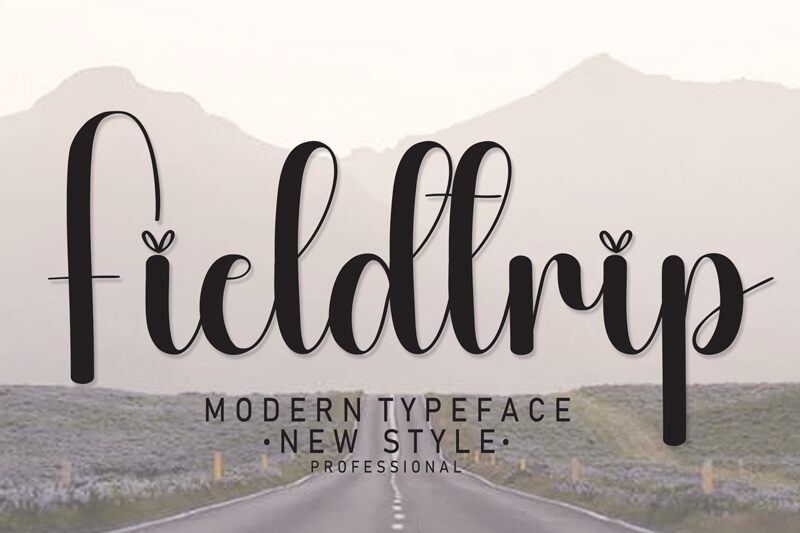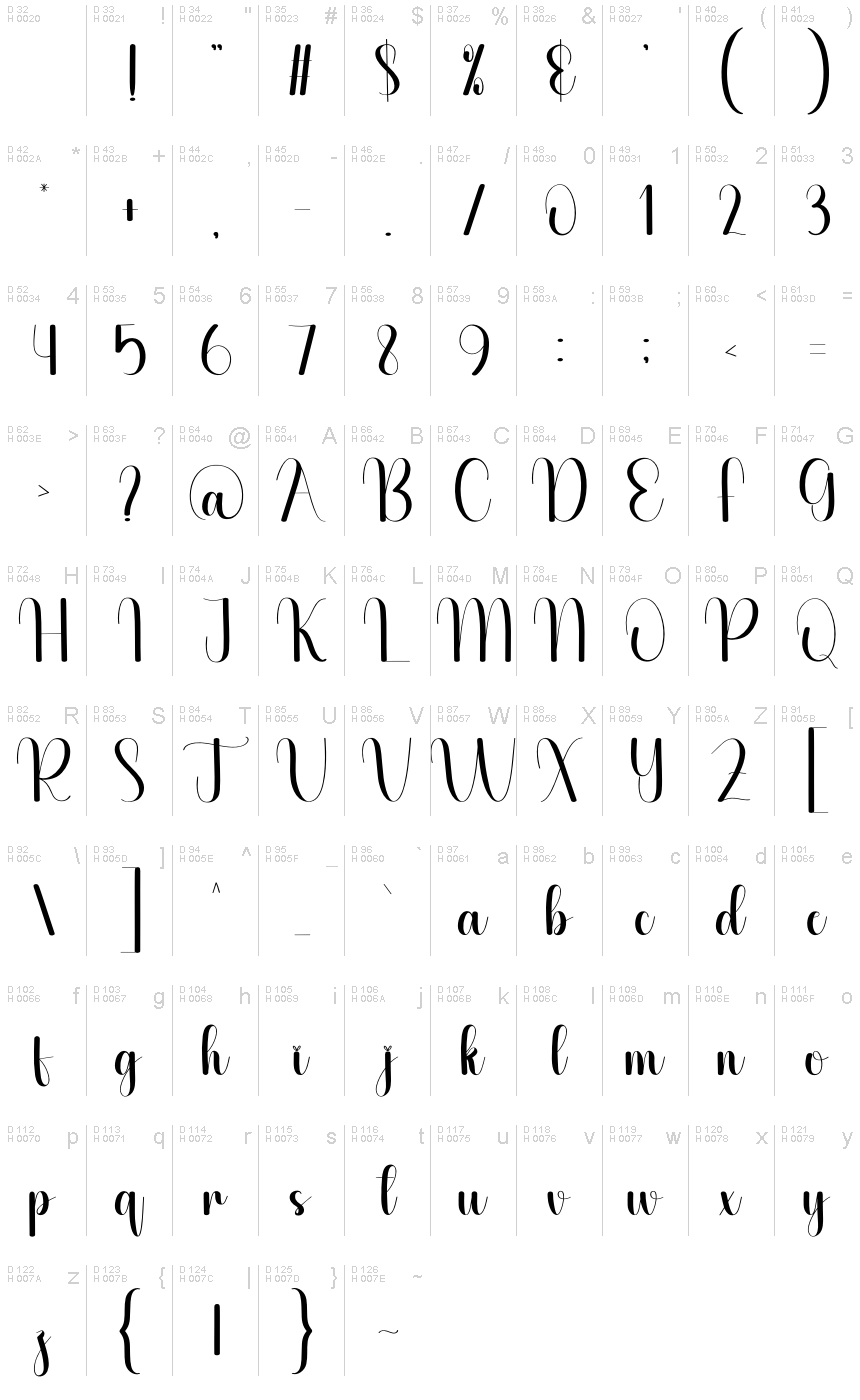
Fieldtrip
Fieldtrip font, crafted by Scratchones, embodies the enchanting fluidity of calligraphy with a playful twist. Its sweeping curves and whimsical flourishes create a sense of joy and spontaneity, making it visually captivating. The light font gracefully dances across the page, exuding elegance while remaining approachable, inviting a closer look at its intricate details.
This distinctive typeface finds its place in various design contexts—from charming wedding invitations to vibrant branding for artisanal products. Its unique aesthetic enhances any project requiring a personal touch or artistic flair, effortlessly blending sophistication with creativity. Whether used for headlines or body text, Fieldtrip leaves a lasting impression that resonates with warmth and originality.